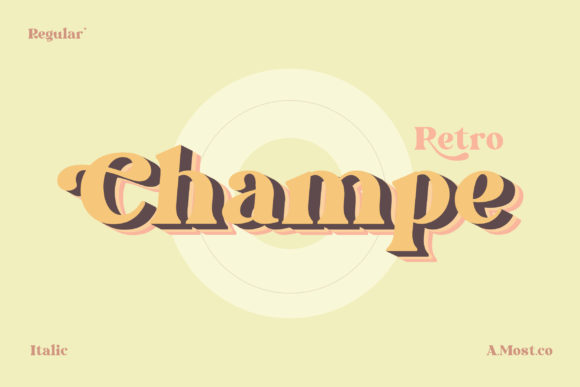
Introducing Champe Font: Elevate Your Designs with a Retro-Styled Display Font
In the world of typography, fonts play a crucial role in making your designs stand out. With the vast array of fonts available, it can be challenging to find the perfect one that captures the essence of your project. However, if you’re looking for a retro-styled display font that can add a touch of nostalgia and uniqueness to your designs, look no further than Champe Font. In this article, we’ll explore the features and benefits of Champe Font and why it’s an excellent addition to your design projects.
What is Champe Font?
Champe Font is a retro-styled display font designed to make your designs pop. With its unique and nostalgic feel, this font is perfect for adding a touch of personality to your projects. Whether you’re working on a logo, brochure, or product design, Champe Font is sure to make your designs stand out from the crowd.
Key Features of Champe Font
- Retro-Styled: Champe Font has a distinct retro feel that adds a touch of nostalgia to your designs.
- Display Font: This font is specifically designed for display purposes, making it perfect for headlines, titles, and other prominent text elements.
- Unique: Champe Font has a unique and distinctive style that sets it apart from other fonts.
- Versatile: This font can be used in a variety of design projects, from logos and brochures to product designs and more.
Benefits of Using Champe Font
So, why should you choose Champe Font for your design projects? Here are just a few benefits of using this amazing font:
- Adds Personality: Champe Font adds a touch of personality to your designs, making them more engaging and memorable.
- Enhances Creativity: With its unique and retro-styled design, Champe Font can inspire creativity and help you think outside the box.
- Perfect for Display: This font is specifically designed for display purposes, making it perfect for headlines, titles, and other prominent text elements.
- Easy to Read: Despite its retro feel, Champe Font is easy to read, even at smaller sizes.
How to Use Champe Font in Your Designs
Using Champe Font in your designs is easy. Here are a few tips to get you started:
- Pair it with Other Fonts: Champe Font pairs well with other fonts, so feel free to experiment with different combinations.
- Use it for Headlines: This font is perfect for headlines and titles, so use it to make a statement.
- Experiment with Colors: Champe Font looks great in a variety of colors, so don’t be afraid to experiment and find the perfect hue.
- Use it for Branding: Champe Font can be used for branding purposes, such as logos and business cards.
Tips for Getting the Most Out of Champe Font
Here are a few more tips for getting the most out of Champe Font:
- Keep it Simple: Don’t overcomplicate your design. Keep it simple and let Champe Font do the talking.
- Play with Size: Experiment with different font sizes to create visual interest.
- Use it Consistently: Use Champe Font consistently throughout your design to create a cohesive look.
In conclusion, Champe Font is a retro-styled display font that can add a touch of personality and uniqueness to your designs. With its key features, benefits, and versatility, this font is perfect for a variety of design projects. By following the tips outlined in this article, you can get the most out of Champe Font and create designs that stand out from the crowd.